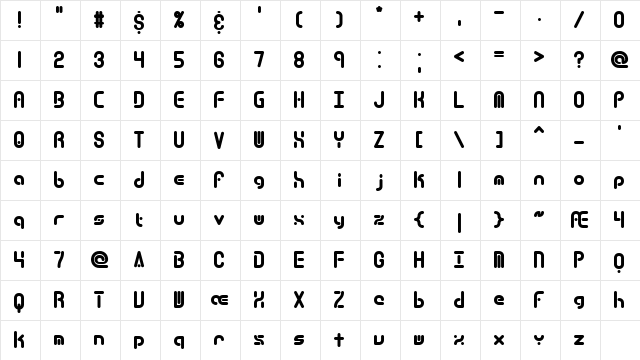
techno overload (BRK) Regular
Design Context for techno overload (BRK) Typeface
techno overload (BRK) channels digital-age aesthetics through its sharp, structured letterforms — ideal for brands that want to signal innovation.
Pro Tip: Use techno overload (BRK) in combination with a neutral sans for body text. Let it define the brand voice in headlines while keeping reading comfortable elsewhere.